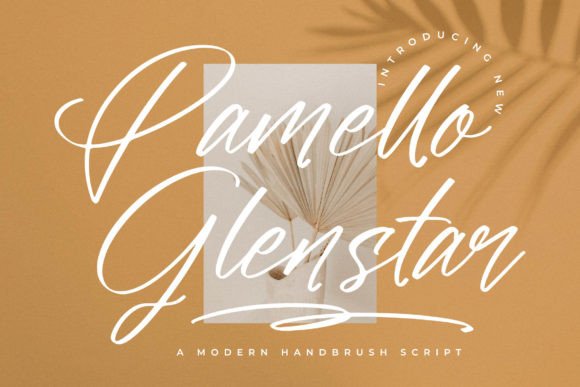
Unleash your creativity and let your words dance with elegance using Pamello Glenstar Font, a captivating signature font that exudes charm and sophistication. This modern script is meticulously crafted to bring a touch of personalized beauty to your creative projects.
With its graceful curves and flowing lines, Pamello Glenstar will transform your designs into works of art. Whether you're creating captivating logos, branding that speaks to the heart, or eye-catching designs for homeware or product packaging, this font will elevate your creations to new heights.
Imagine your products adorned with Pamello Glenstar's timeless charm, creating an unforgettable visual experience for your customers. Your mugs, quotes, and posters will become treasured keepsakes, evoking emotions and leaving a lasting impression.
Dive into the versatility of Pamello Glenstar and explore its endless possibilities. This font is a perfect match for shopping bags and t-shirts, adding a touch of personal style to everyday items. Its elegant presence will enhance book covers, ensuring your stories come alive with a touch of sophistication.
With Pamello Glenstar, your name cards, invitation cards, and greeting cards will become cherished mementos, conveying your heartfelt messages with a touch of grace. Create captivating labels that add a touch of exclusivity to your products.
Whether it's photography, watermarks, special events, or any creative project that demands a touch of flair, Pamello Glenstar will effortlessly elevate your designs, leaving a lasting impression on your audience.